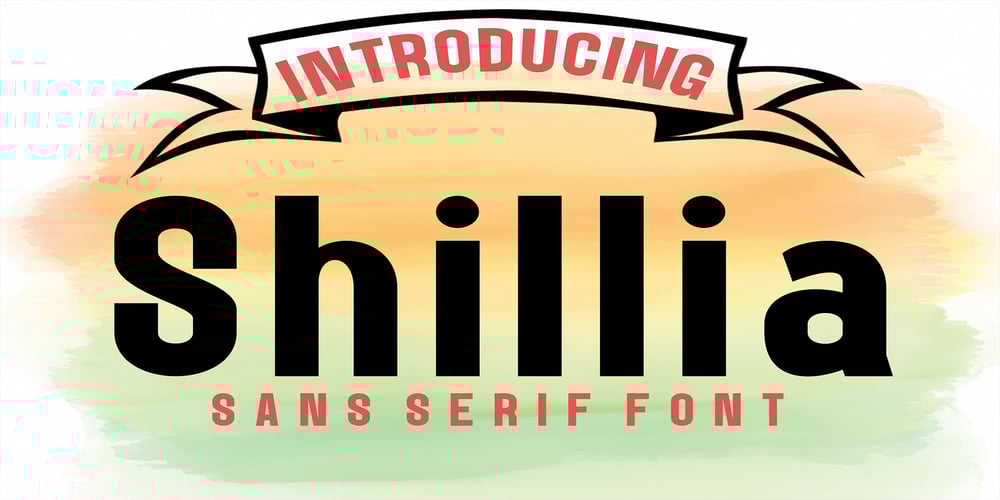
Shilliaek Font Family was designed by Canden Meutuah and published by Canden Meutuah. Shilliaek contains 1 styles and family package options. A new elegant Sans serif font that will add a touch of luxury and style to your projects. This is a very versatile font that works well in both large and small sizes.